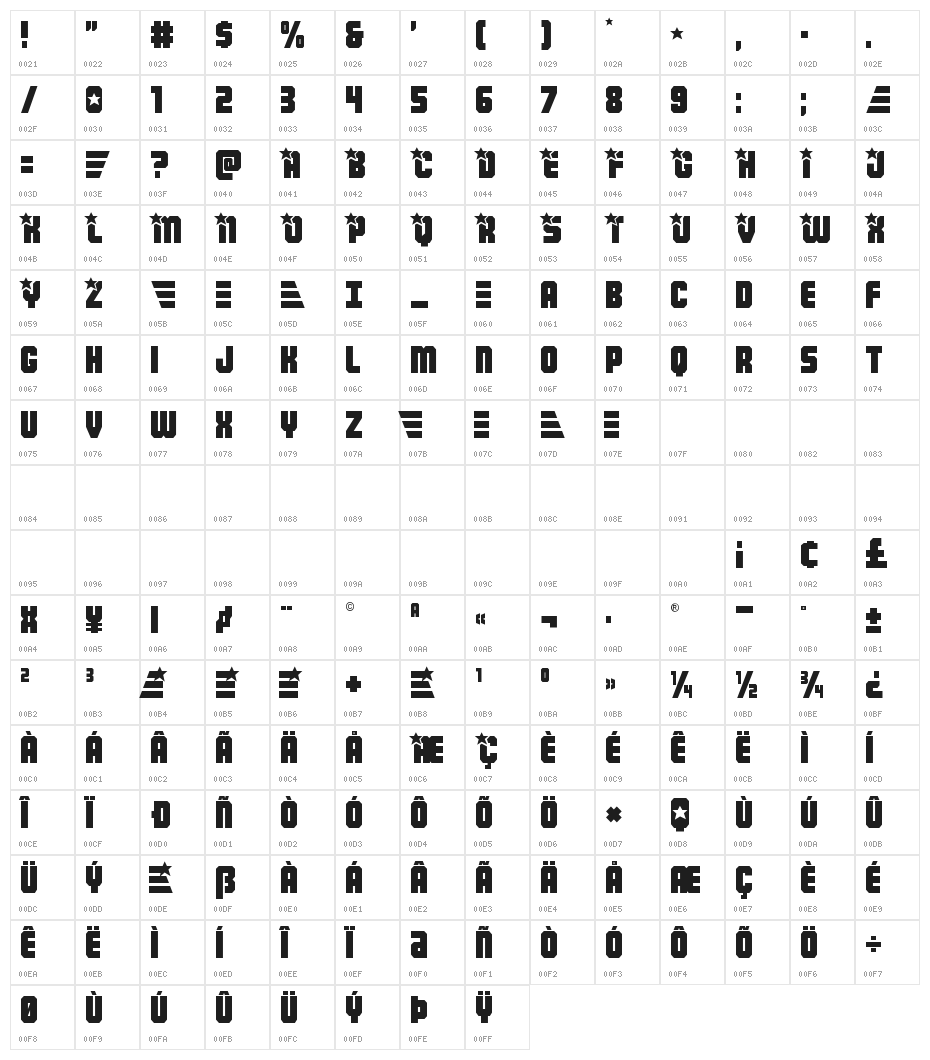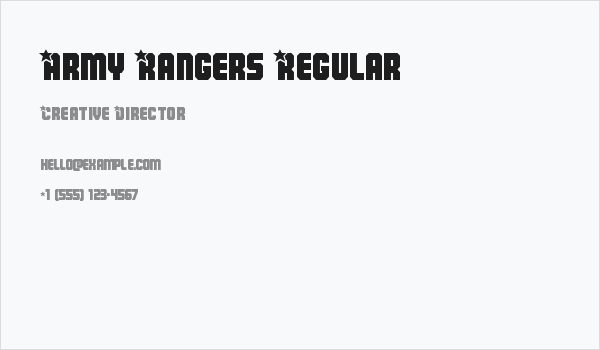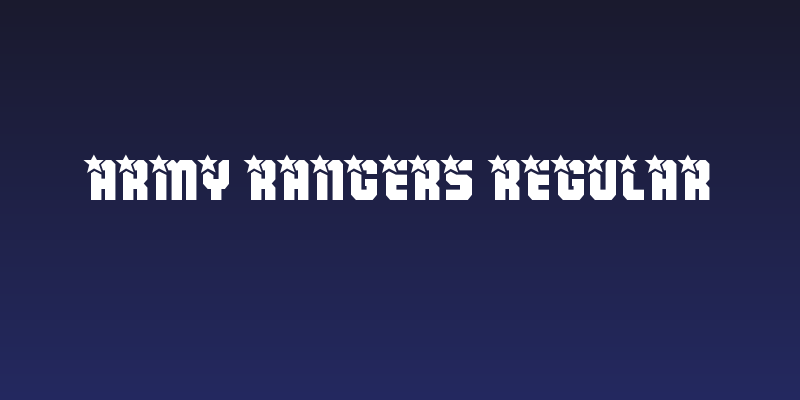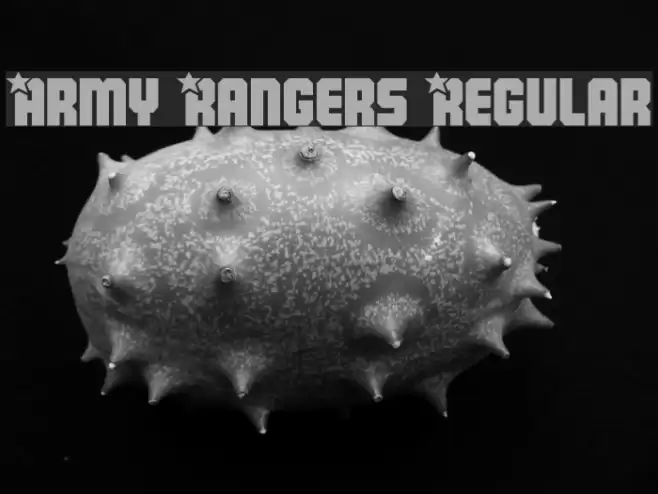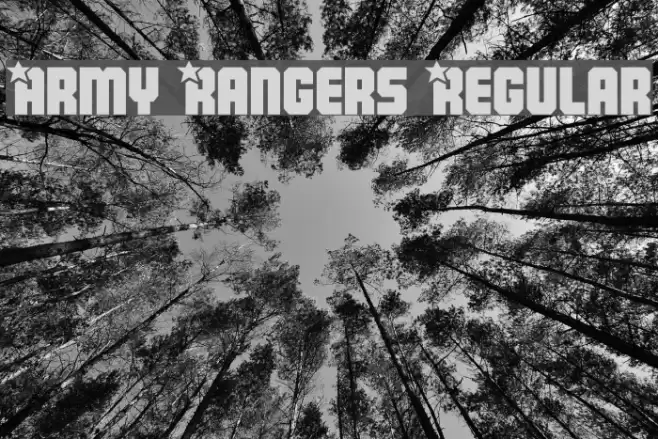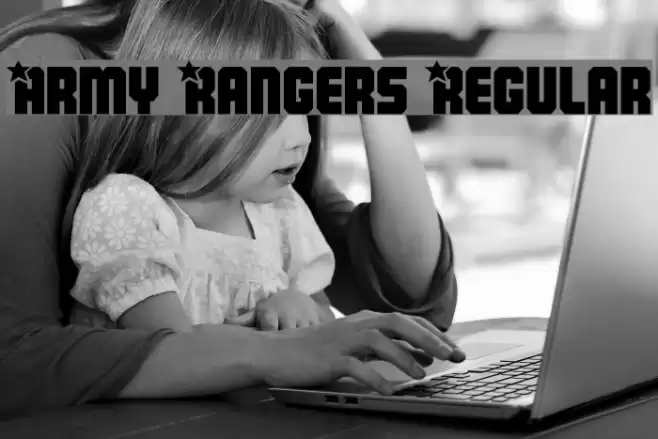
Army Rangers Regular Font
Army Rangers Regular Description
This bold and striking font features a strong, military-inspired design with a star motif integrated into the uppercase letters. The geometric shapes and sharp angles give it a commanding presence, ideal for making a statement. The uppercase letters are adorned with stars, adding a decorative touch that enhances its thematic appeal. The numbers and special characters maintain the bold, angular style, ensuring consistency across all glyphs. This font is perfect for projects that require a bold, authoritative look, such as military-themed designs, posters, or branding that seeks to convey strength and reliability.
| Proposed Projects | Ideal for military-themed designs, posters, branding, and any project requiring a bold, authoritative look. |